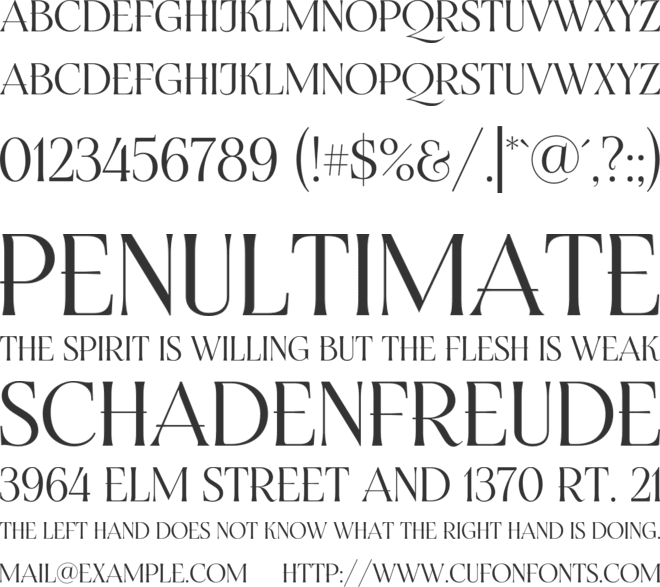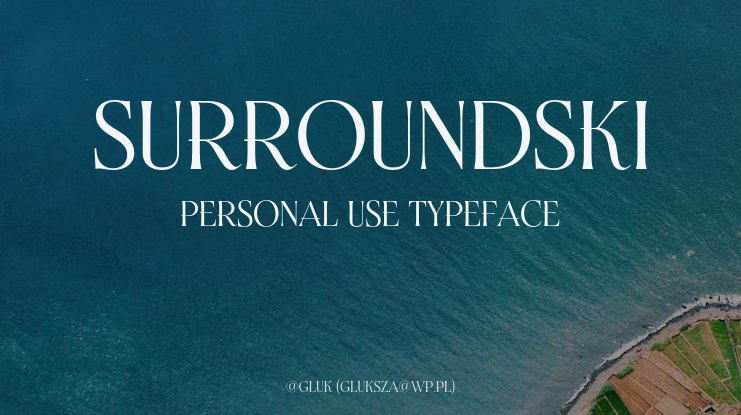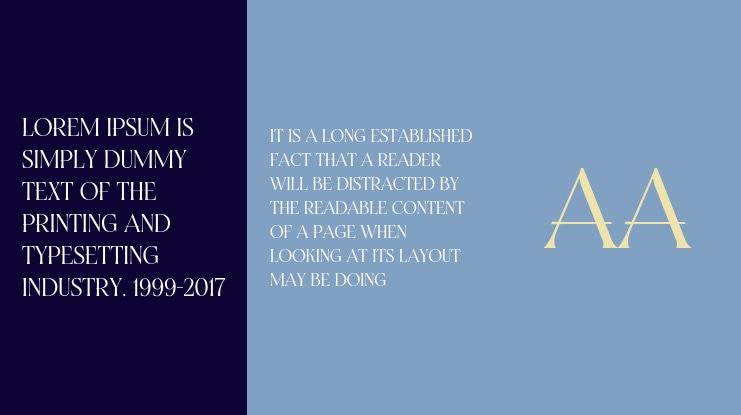
Surroundski PERSONAL use Font
Decorative, semi-serif font Surroundski is allCaps typeface with multilingual, contextual alternates (dynamically changing glyphs to enhance text flow)